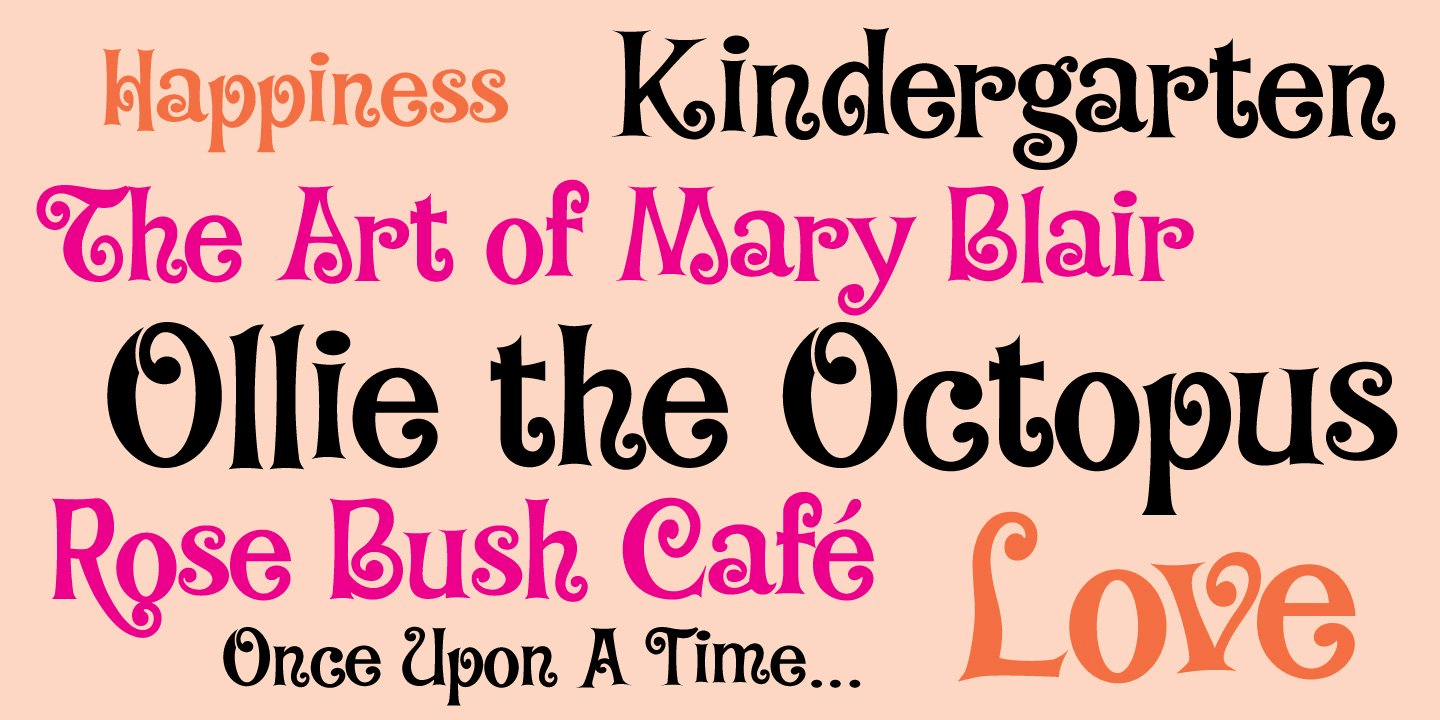
Baileywick Curly
Font Family by Jukebox
Baileywick Curly is a playful display font with a distinctly groovy, wacky personality. Its curly forms give it a lively, retro feel that leans into 1960s-inspired style, making it an easy choice when you want typography that feels fun, expressive, and a little offbeat.
Offered as a single font style from Jukebox, this face is well suited to eye-catching display work where character matters most. Use it for posters, branding concepts, packaging, social graphics, or any project that benefits from a cheerful, vintage-leaning voice with plenty of visual energy.